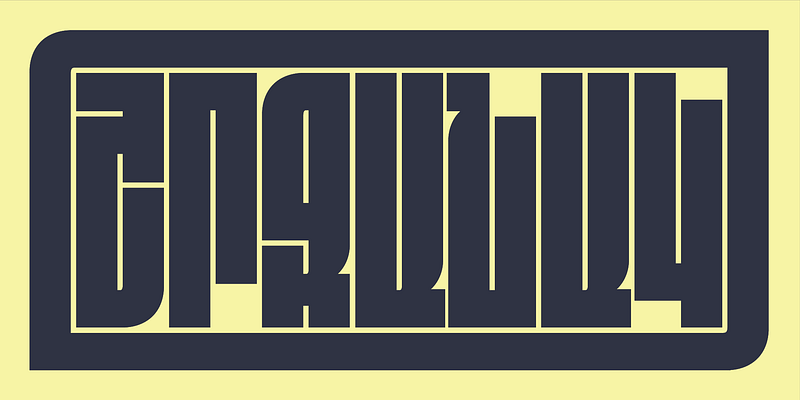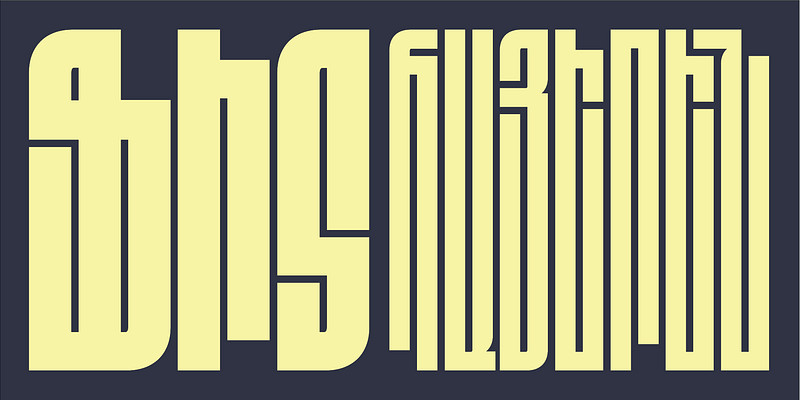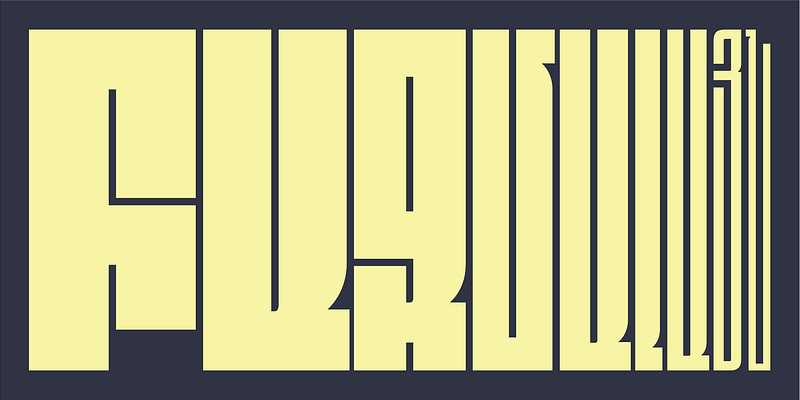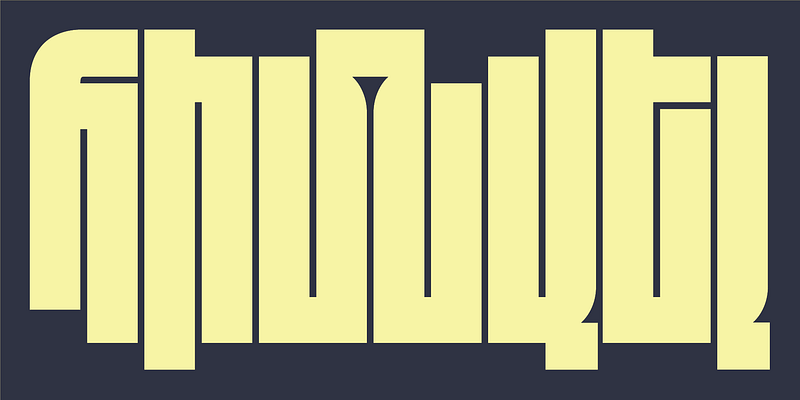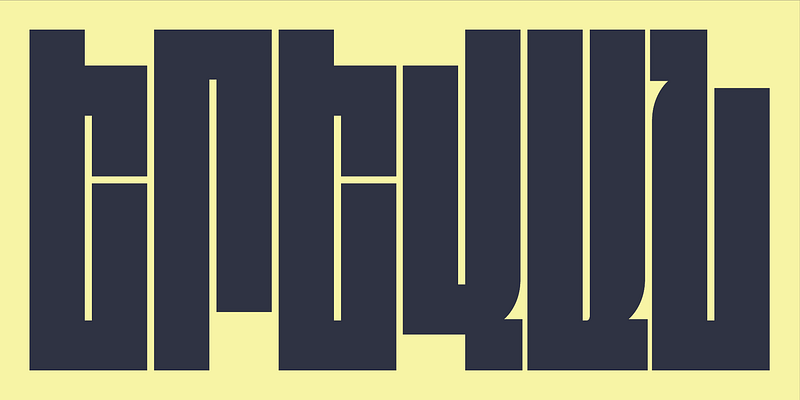
Fit Armenian is an experimental display typeface stretching the limits of legibility and form — its extraordinary width range is designed to fill space with maximum impact. Developed in 2019 as a companion to DJR’s Fit, Gor Jihanian designed Fit Armenian inspired by the unique inscriptions of Armenian gravestones in India.